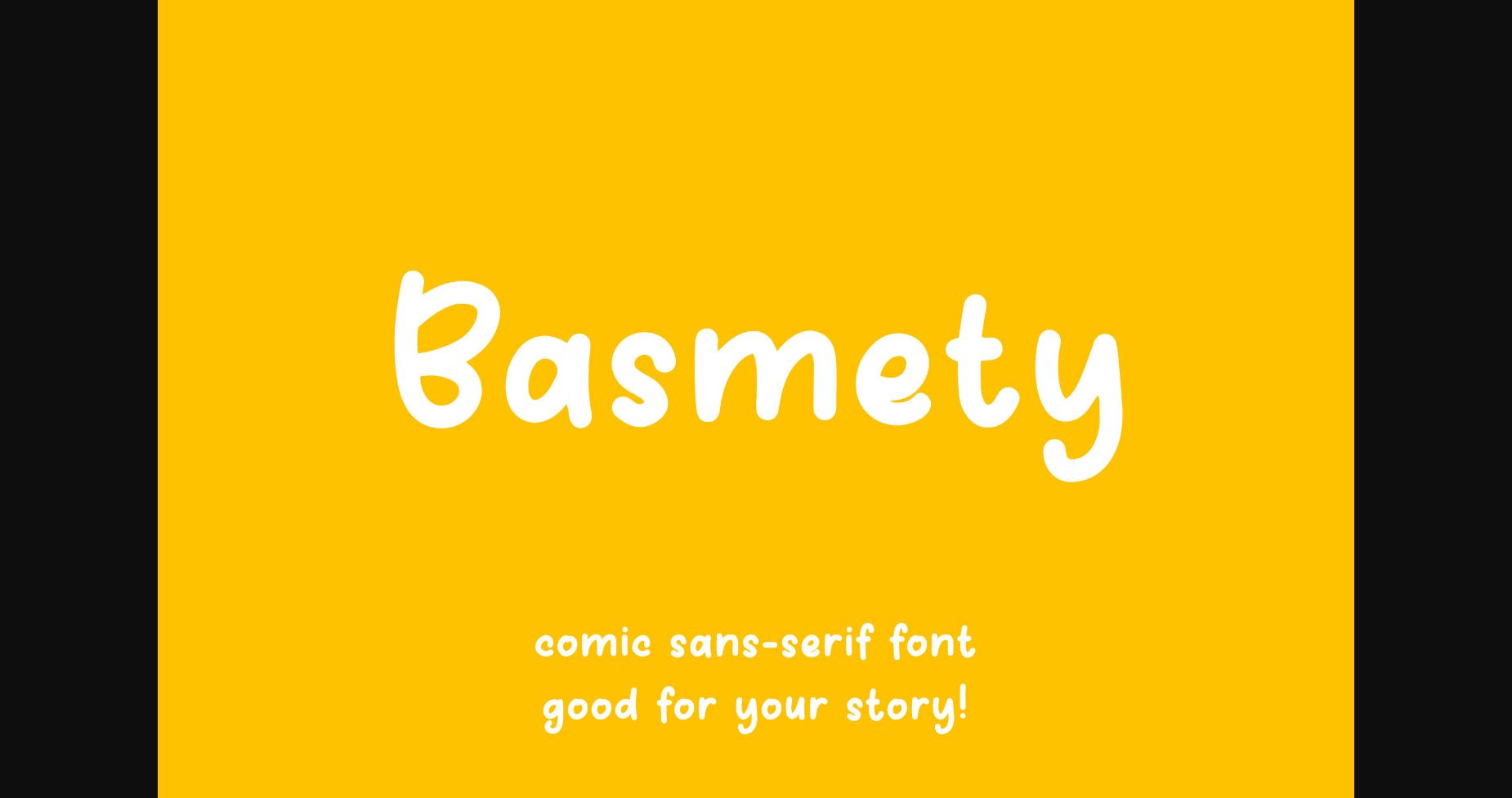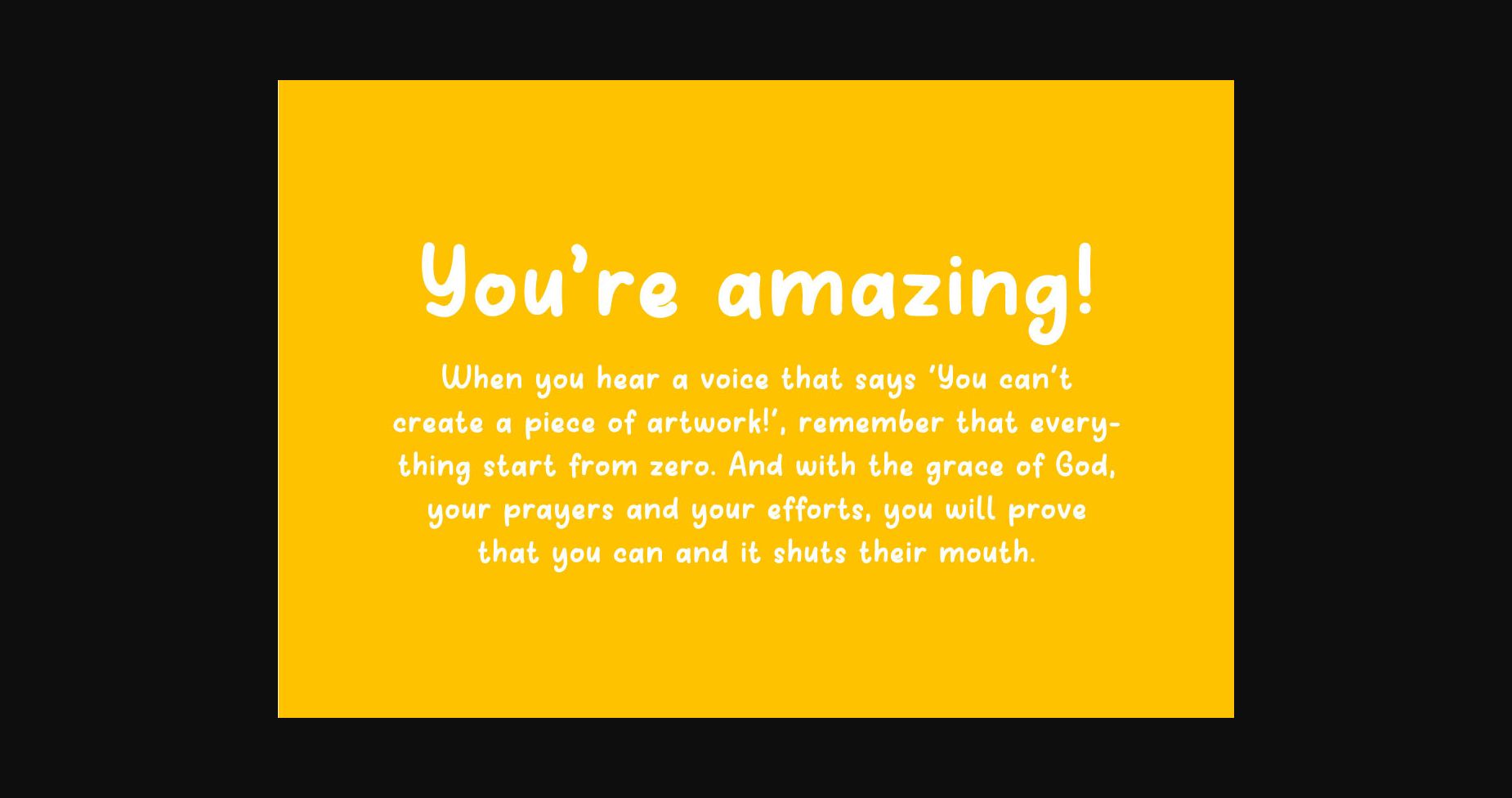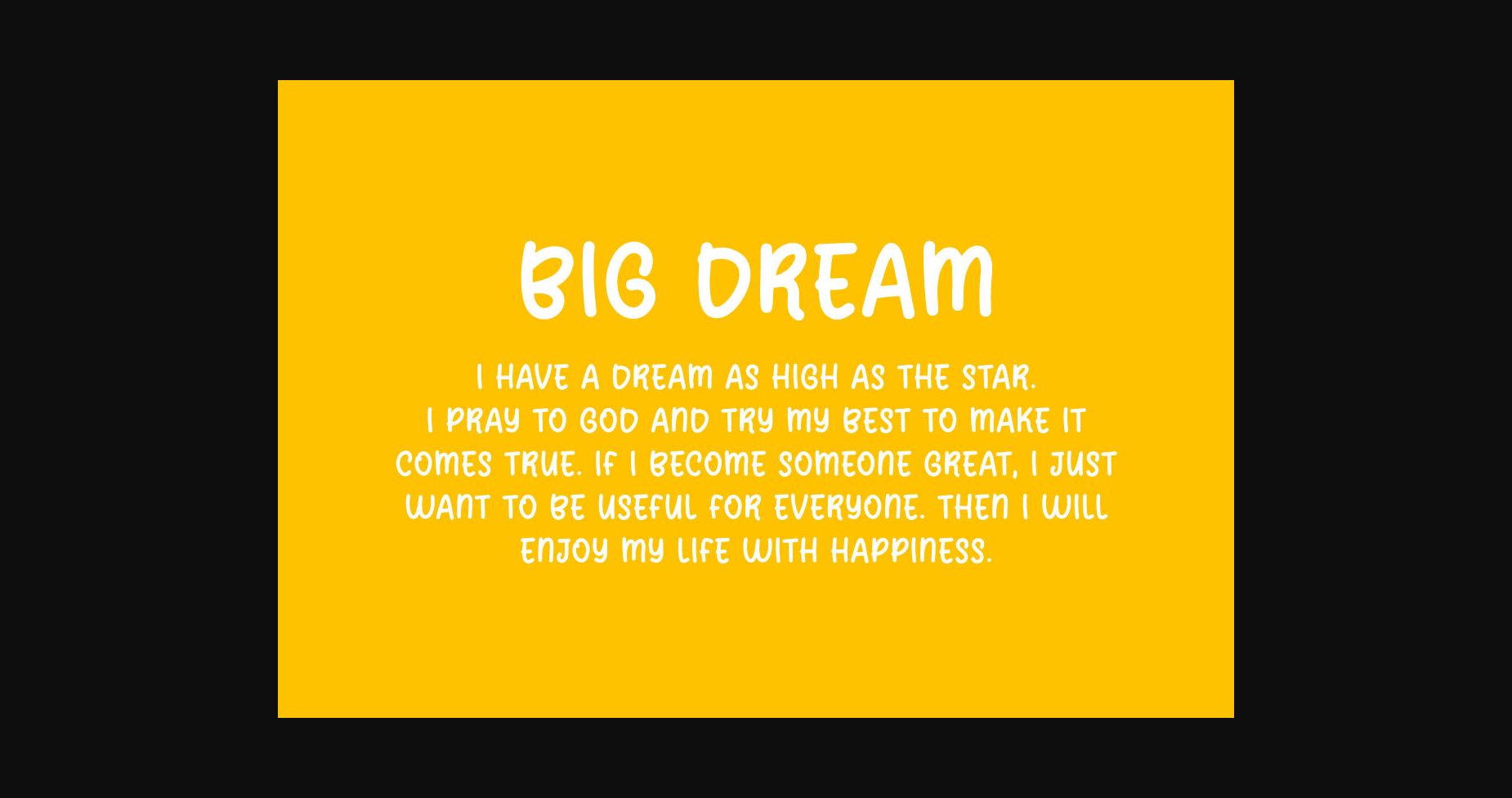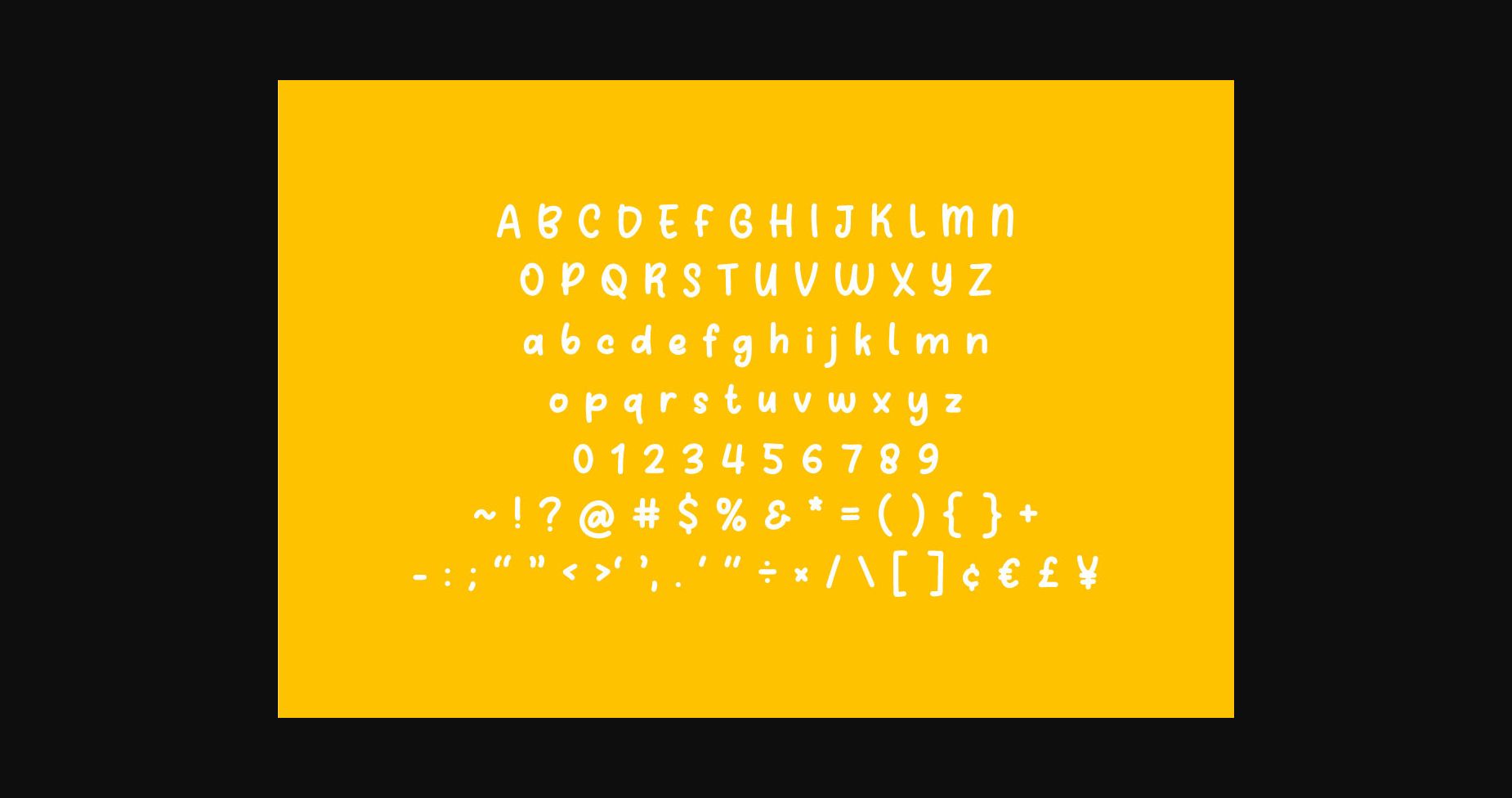
Basmety Font
About Basmety Font
Basmety is a fun and playful sans serif font. No matter the topic, this font will be an incredible asset to your fonts’ library, as it has the potential to elevate any creation.